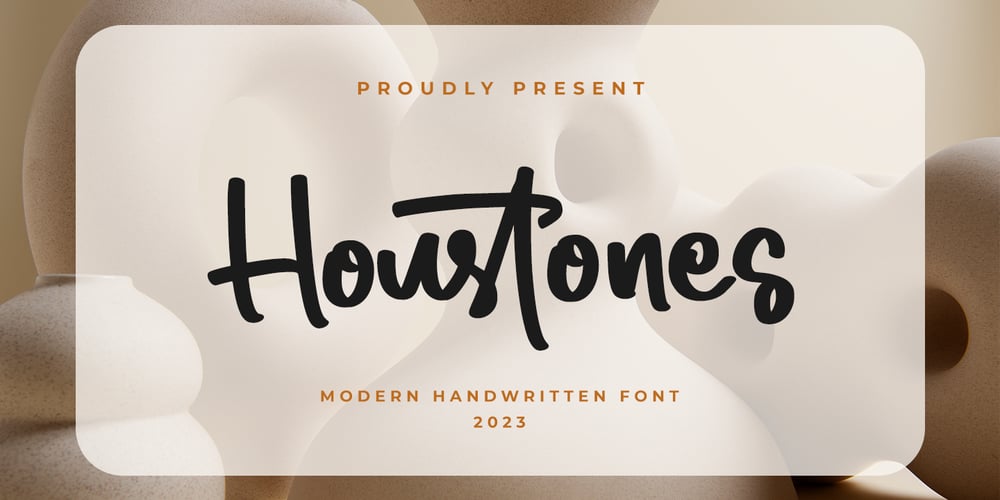
Houstones Font Family was designed by Hayinah and published by Rockboys Studio. Houstones contains 1 styles and family package options. Houstones Bold Script is modern script font perfect for a variety of projects. Every single letter has been carefully crafted to make your text look beautiful.